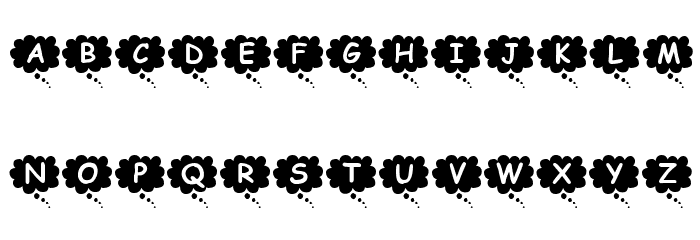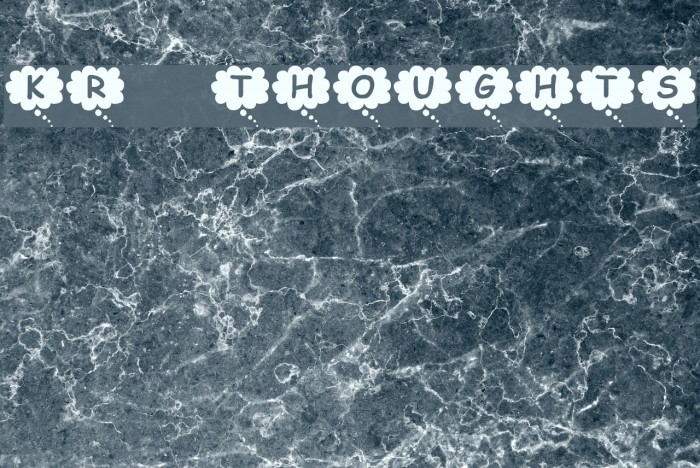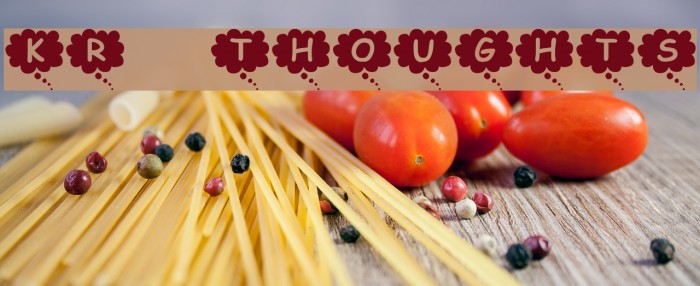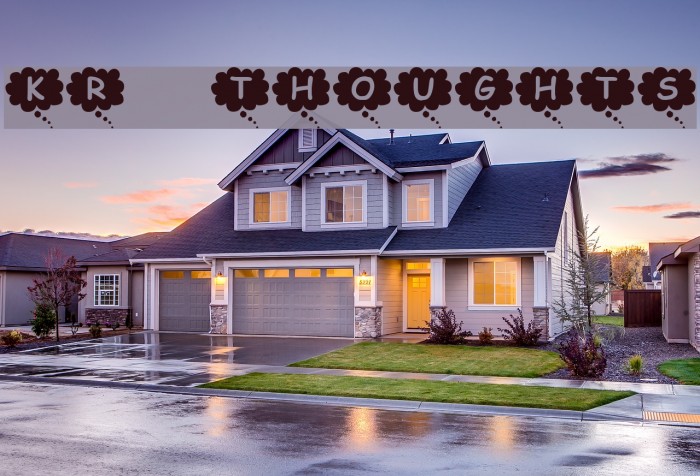
KR Thoughts Font
This font features bold, uppercase letters encased in a decorative, cloud-like border with a playful and whimsical appearance. The characters are evenly spaced and maintain a consistent size, creating a uniform look across the alphabet. The boldness of the letters ensures high visibility, making it suitable for attention-grabbing designs. The unique border adds a touch of creativity and fun, making it ideal for projects that require a lively and engaging aesthetic. The font's style is both modern and decorative, appealing to a wide range of creative uses.
A bold, decorative font with cloud-like borders around uppercase letters.
- Proposed Projects: Ideal for children's book covers, playful posters, party invitations, and creative branding.
- Overall Style: Playful, Modern, Decorative